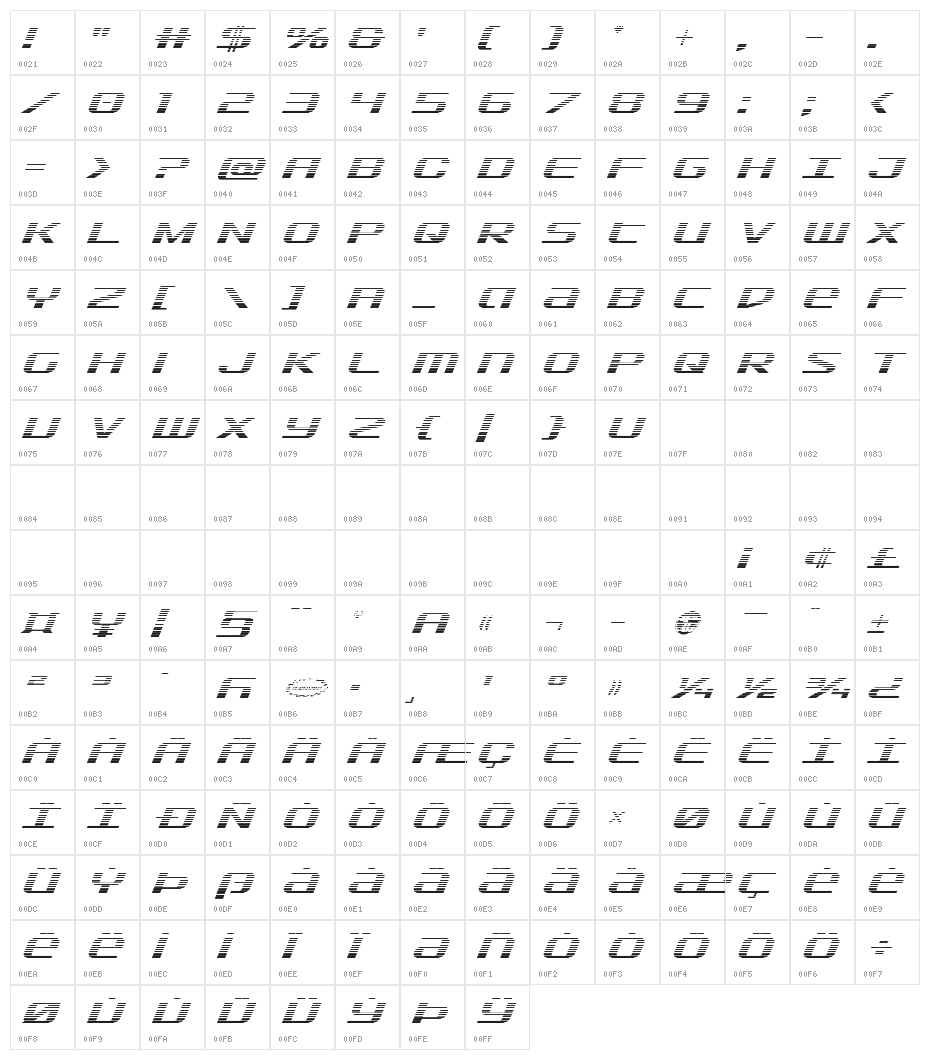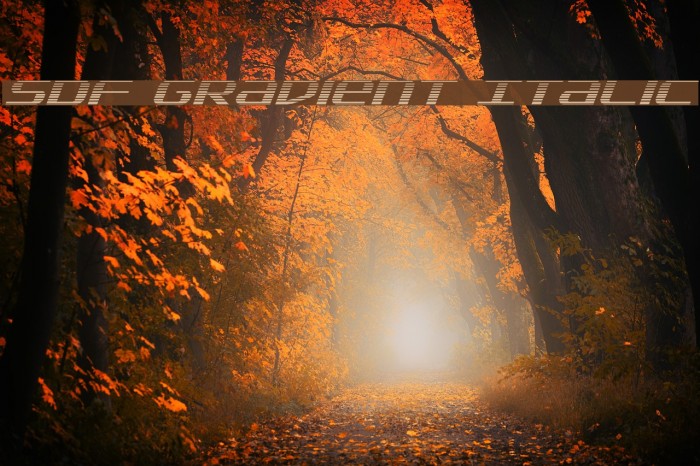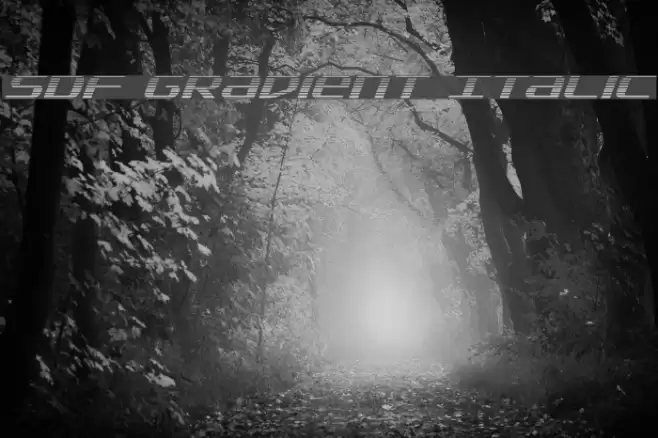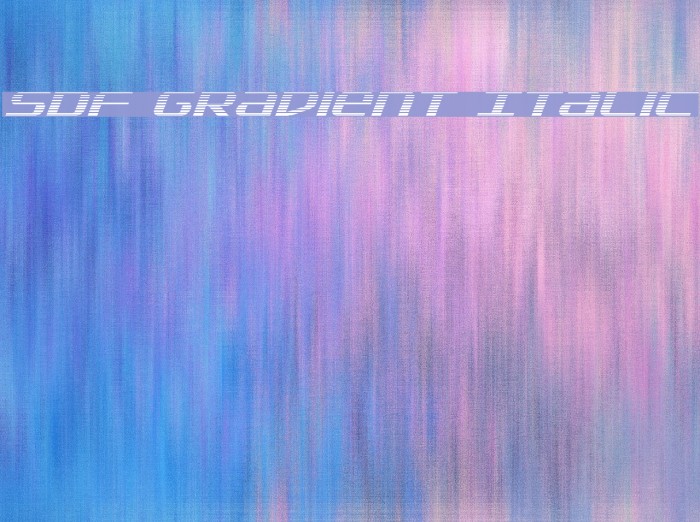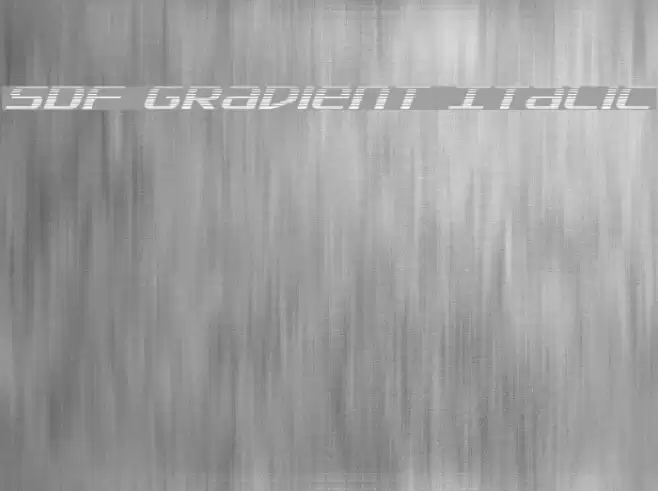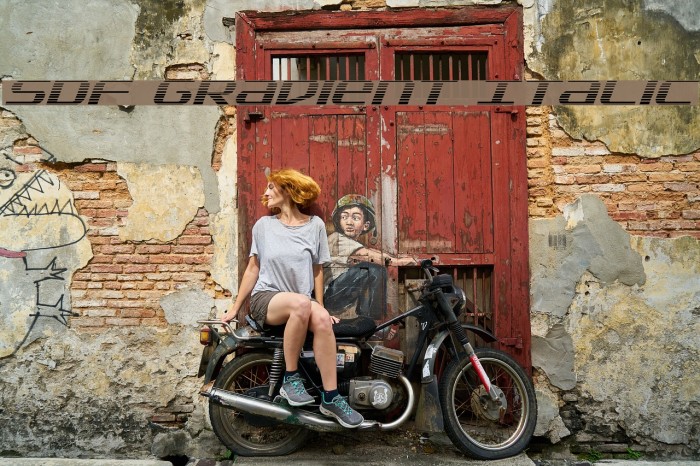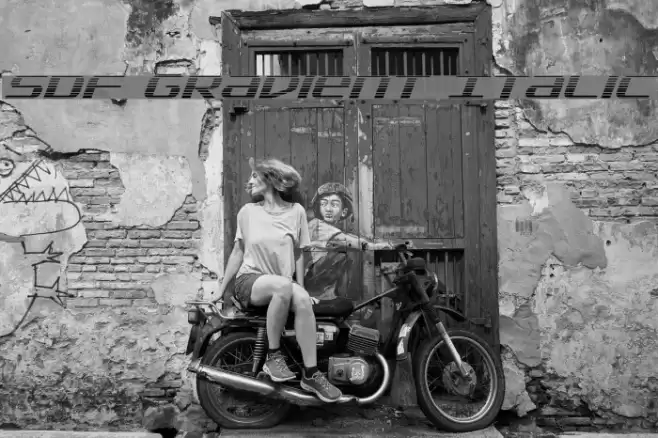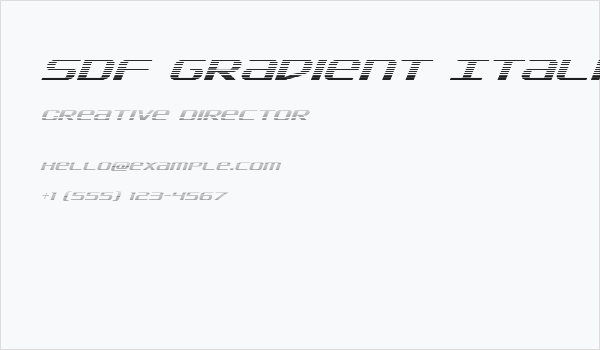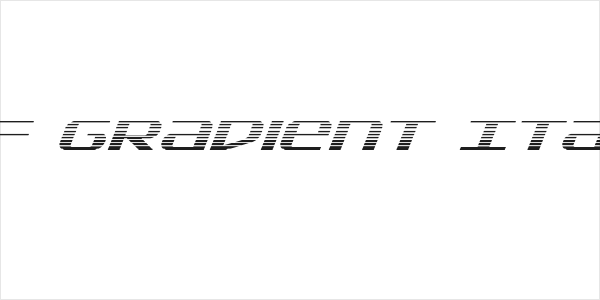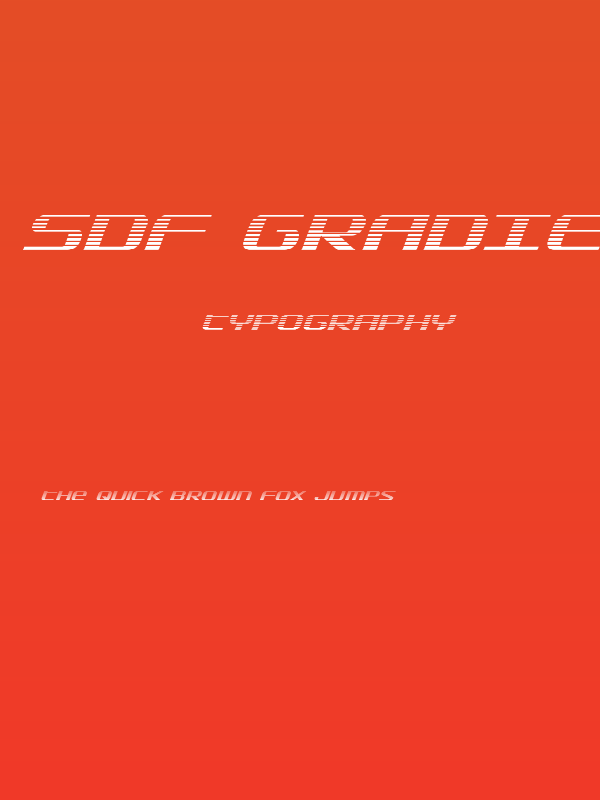
SDF Gradient Italic Font
SDF Gradient Italic Description
This font features a modern, dynamic design with a distinct italic slant, giving it a sense of motion and speed. The characters are composed of horizontal lines that create a gradient effect, enhancing its futuristic and digital appearance. The uppercase and lowercase letters maintain a consistent style, with sharp angles and clean lines. Numbers and special characters are designed to match the overall aesthetic, ensuring uniformity across all text elements. This font is ideal for projects that require a bold, eye-catching look with a technological or contemporary theme.
Use CaseLogos, Headlines, Digital Media
Proposed ProjectsIdeal for technology branding, sports team logos, digital media, and video game titles.